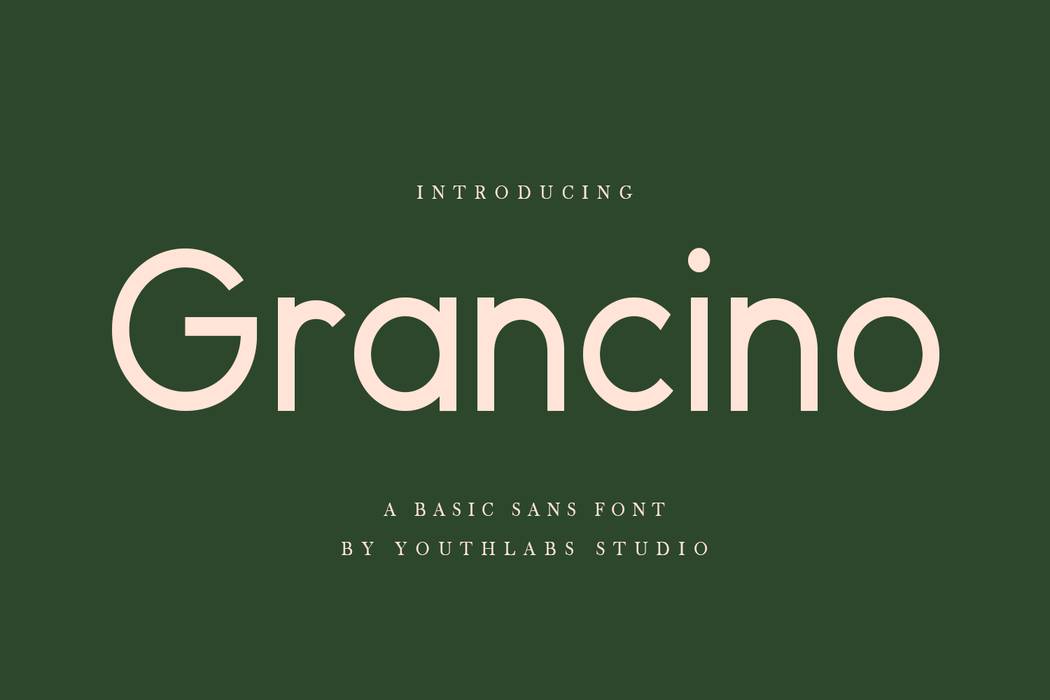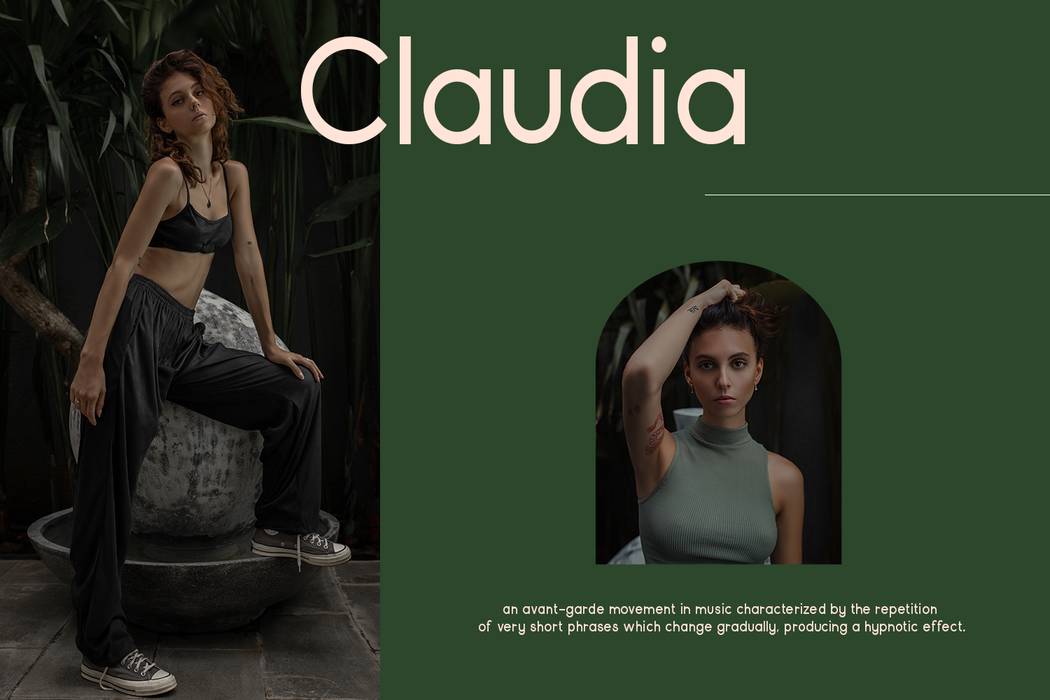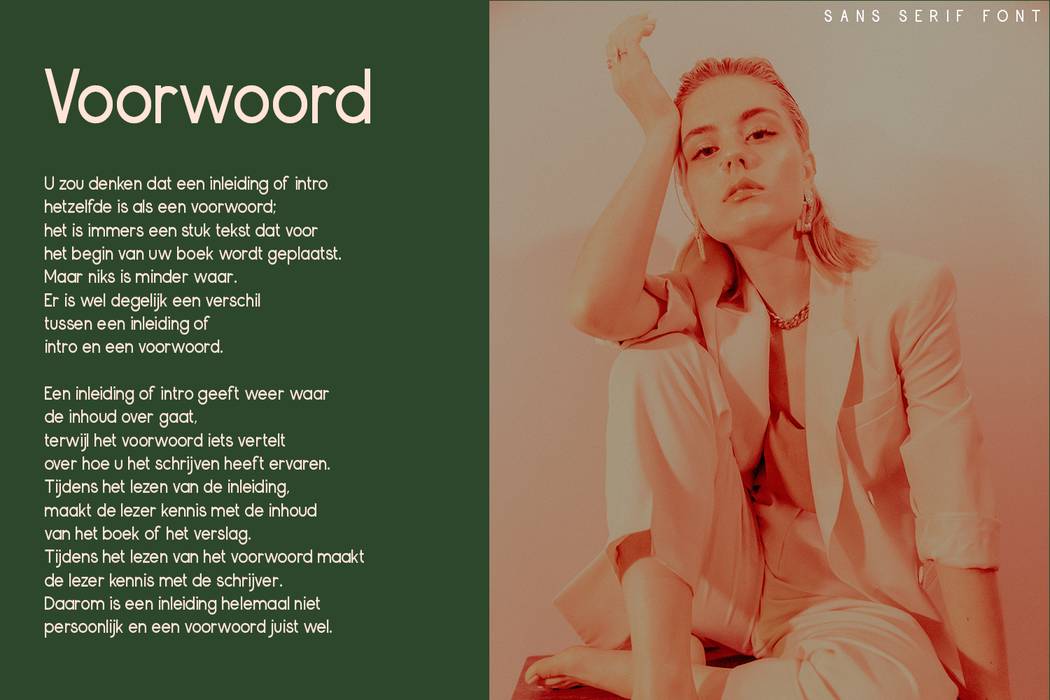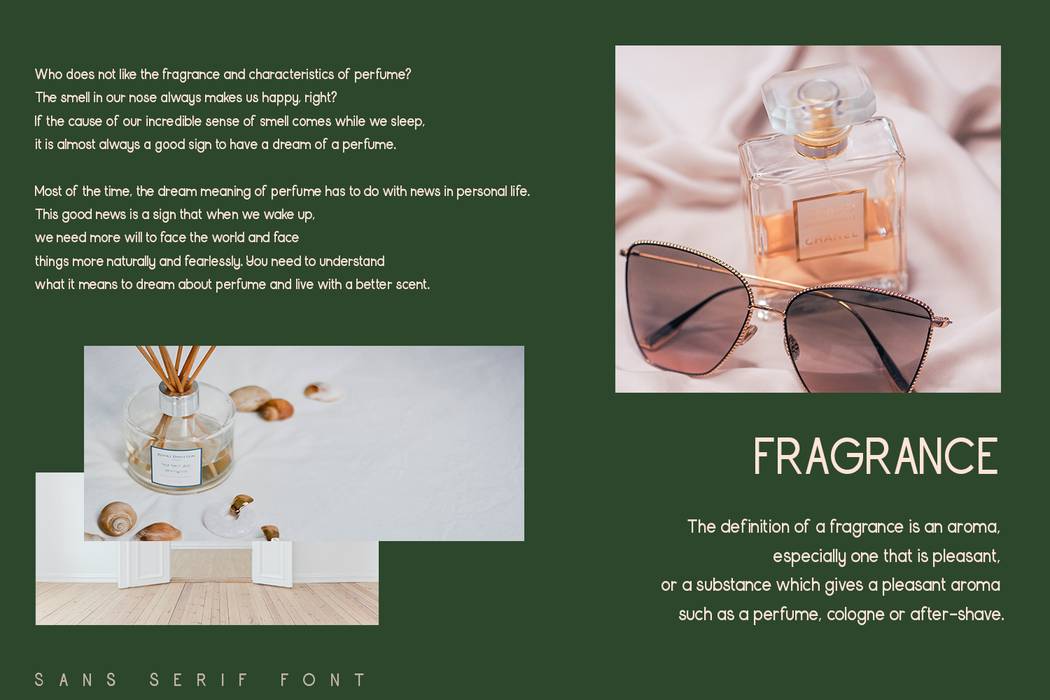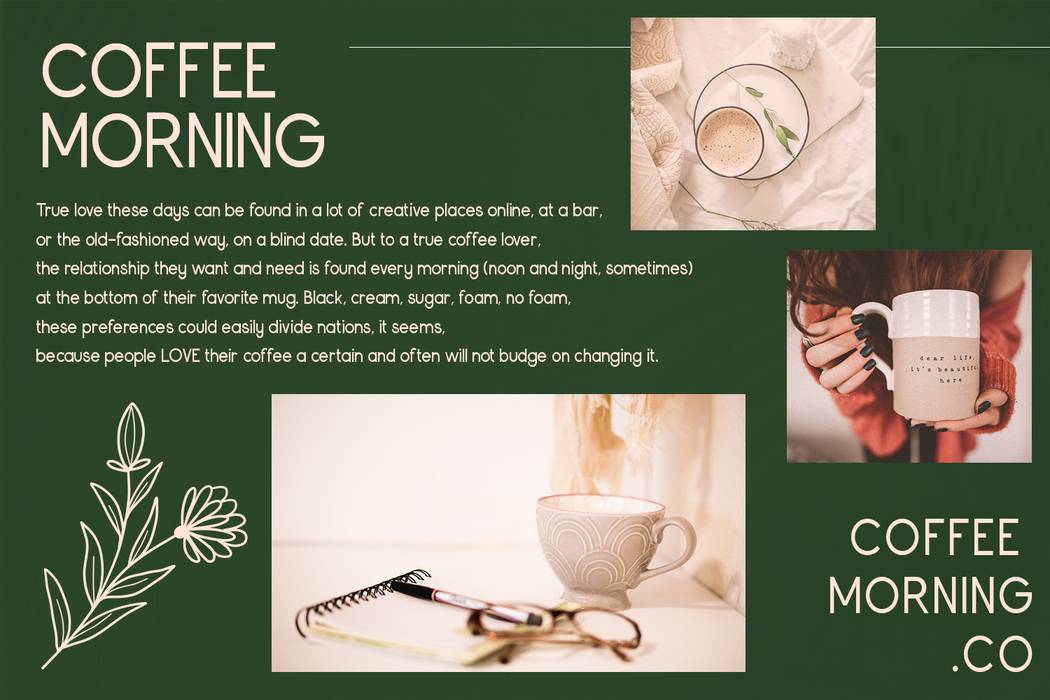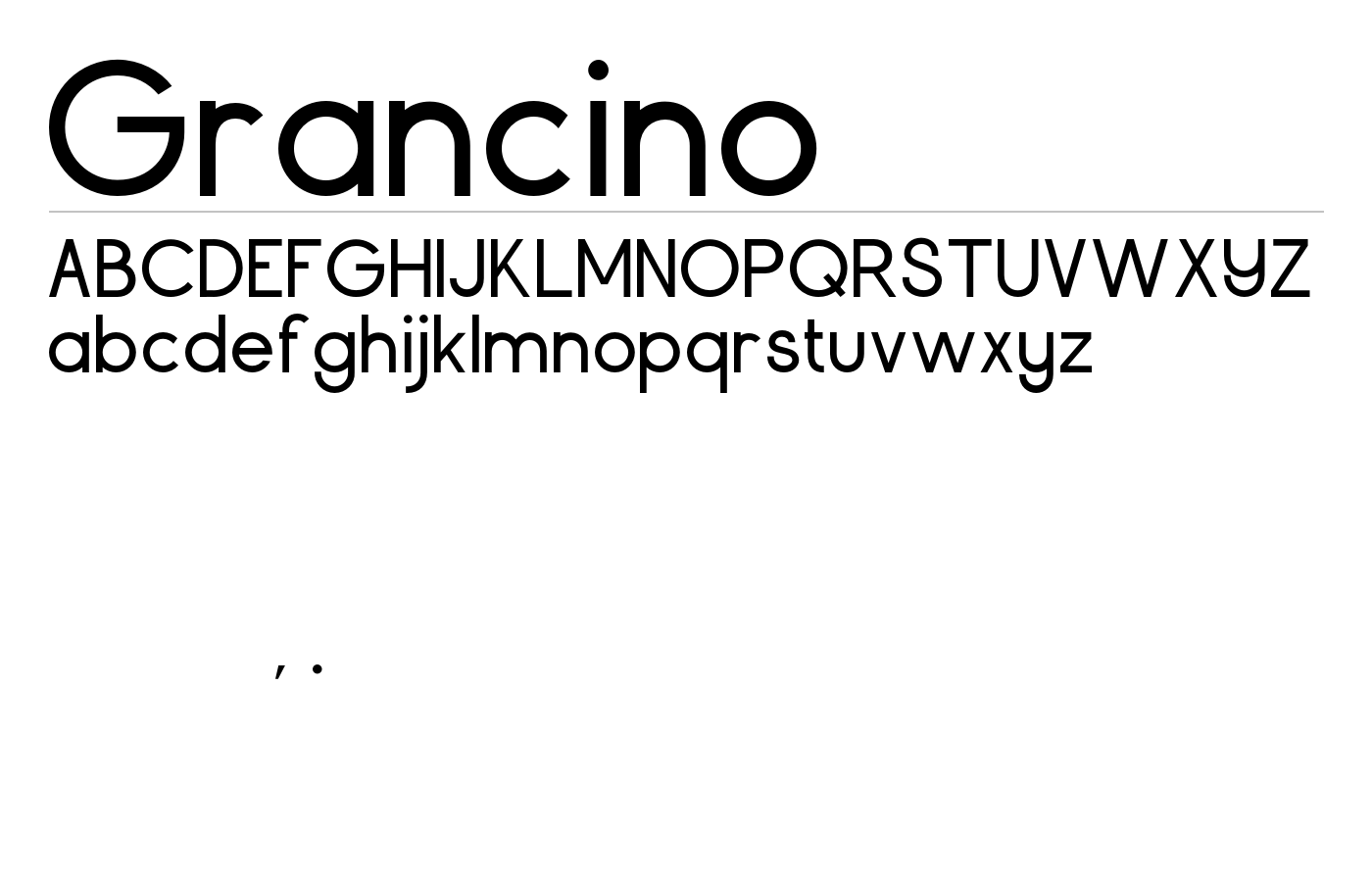
Grancino is a clean and modern sans serif font characterized by its geometric shapes and balanced proportions. With its regular weight and open, airy spacing, it offers high legibility while maintaining a sleek, contemporary feel suitable for both headlines and body text. This versatile typeface works well for branding, editorial design, and digital platforms where clarity and a polished, professional look are desired.
Grancino Font
About Grancino Font
| Font family | Grancino Font |
| Designer | Ja'far furqon |
| Trademark | Youthlabs Studio |